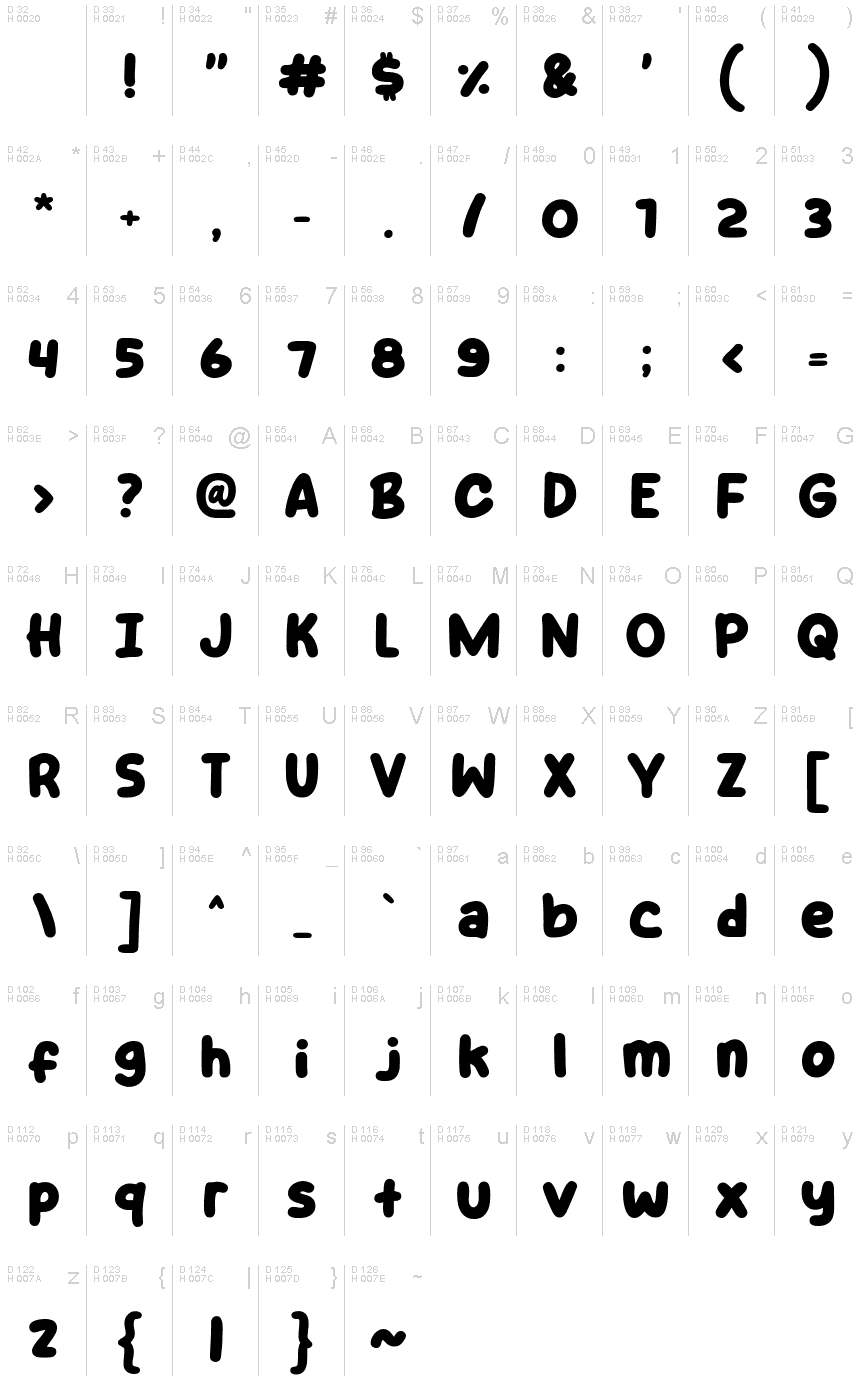
Star Choco
Star Choco, a whimsical and captivating display font designed by Khurasan, is here to add a playful touch to your projects. With its extra-bold weight and cartoon style, this font is perfect for children's book covers, animated movie titles, and eye-catching signage. Let Star Choco transport your audience to a world of imagination and wonder with its delightful curves and charming characters. Whether you're designing a logo for a candy shop or creating graphics for a kid's birthday party, this font will surely make your creations stand out from the crowd.